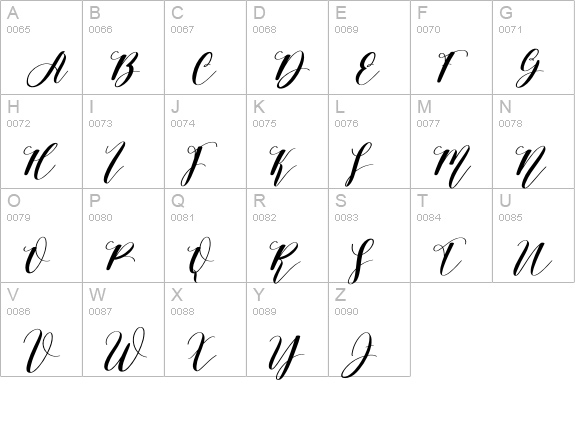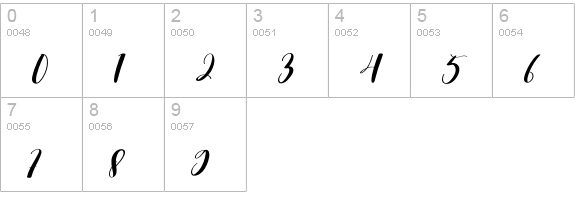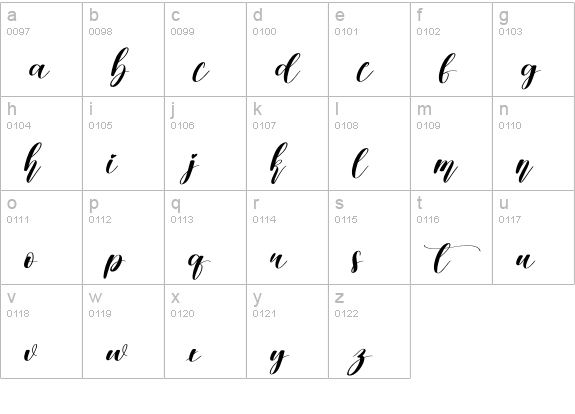
Christmas Wonderful Font Details
Christmas Wonderful is a free for personal use font in the Script > Handwritten category, designed by scratchones. It has been downloaded 12 times and is available for Windows, Mac and Linux.
Introducing Christmas Wonderful font, a whimsical and festive typeface perfect for all your holiday design needs. This charming font captures the spirit of Christmas with its playful and decorative style, making it a delightful choice for greeting cards, invitations, posters, and more.
Christmas Wonderful font features unique letterforms that exude warmth and cheer, bringing a touch of magic to your projects. With its intricate details and elegant flourishes, this font adds a special touch to any design.